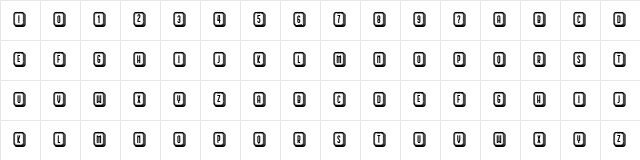
Schwarzenberg Capitals Regular
Design Context for Schwarzenberg Capitals Typeface
Schwarzenberg Capitals offers clean, dependable letterforms without strong stylistic allegiance, making it a practical choice for designers who need flexibility.